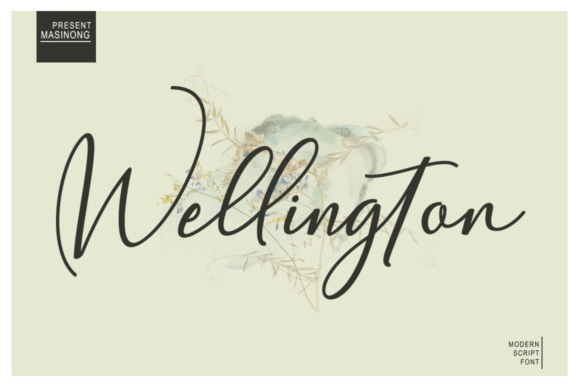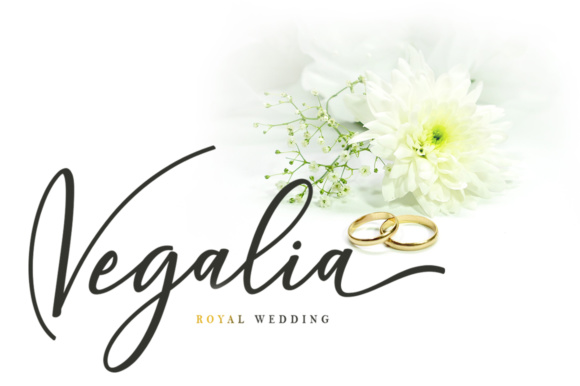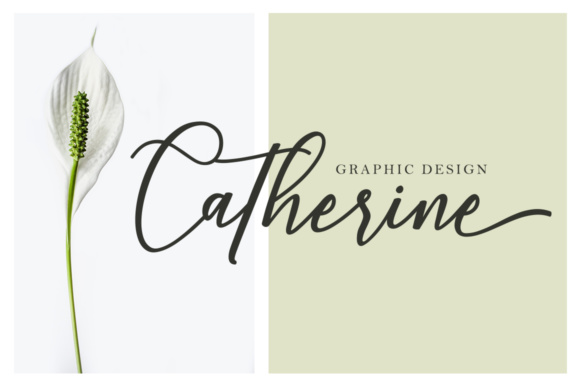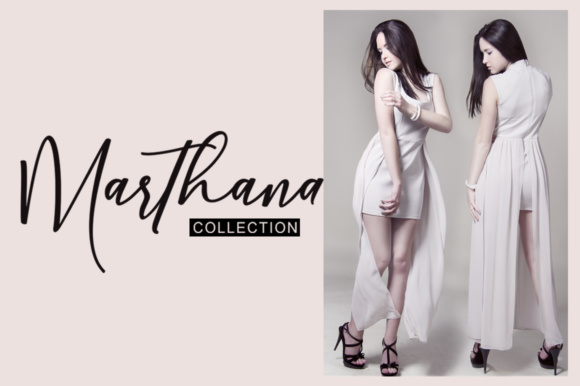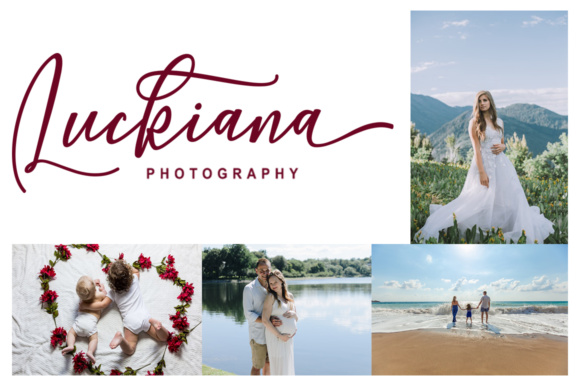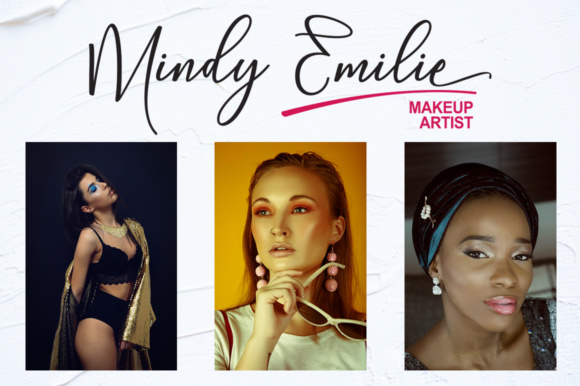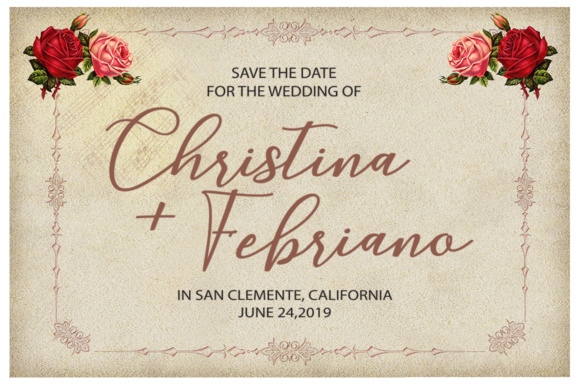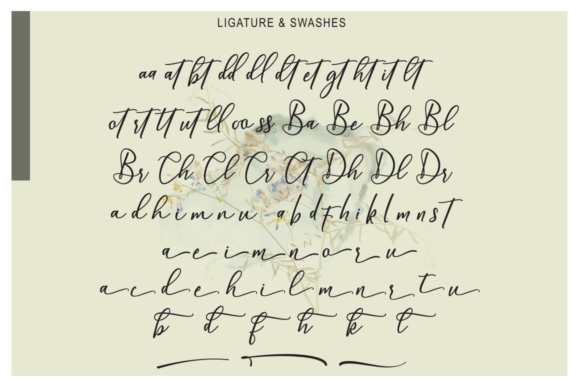
HomeScript FontsWellington Font Script Fonts Wellington Font FacebookXPinterestWhatsApp Wellington Font Poster 2 Wellington Font Poster 3 Wellington Font Poster 4 Wellington Font Poster 5 Wellington Font Poster 6 Wellington Font Poster 7 Wellington Font Poster 8 Wellington Font Poster 9 About Wellington Font Wellington is a simple, clean typeface, allowing you to create elegant designs in an instant. DOWNLOAD NOW People also explored Ripple Font Indian Roller Font Merecliff Font Mystiqious Dingbats Font Rolade Font Martha Esthela Font Sophia Font Anders Love Valentine Font 406 0 TagsWellington Font Previous articleNicollast FontNext articleCantana Script Font LEAVE A REPLY Cancel reply Comment: Please enter your comment! Name:* Please enter your name here Email:* You have entered an incorrect email address! Please enter your email address here Website: Save my name, email, and website in this browser for the next time I comment. Personal Use Free Hysteria Santa Personal Use Free Read more about this font Unispace Personal Use Free Read more about this font Husky Stash Personal Use Free Read more about this font Rollayka Personal Use Free Read more about this font BLOG Exploring Font Trends Shaping Communication in the Digital Era Fonts, like all design elements, are subject to trends. They play a crucial role in communicating a brand's personality,... Best Fonts for T-Shirt Design – Top 2025 Picks How to Cut Any Font on Cricut: Convert a Font to SVG (Free) Elegant Wedding Invitation Fonts – Handwritten & Script Fonts